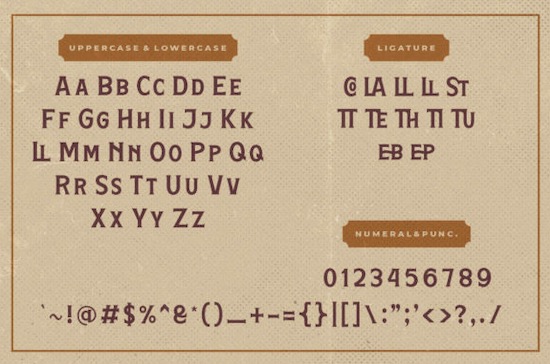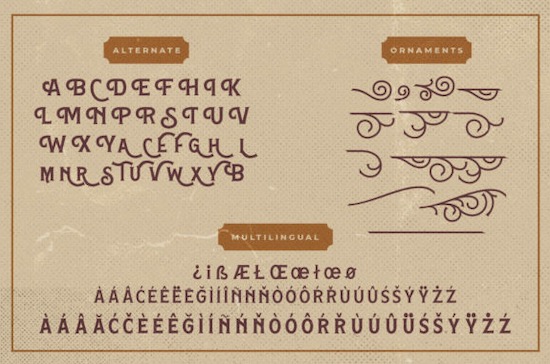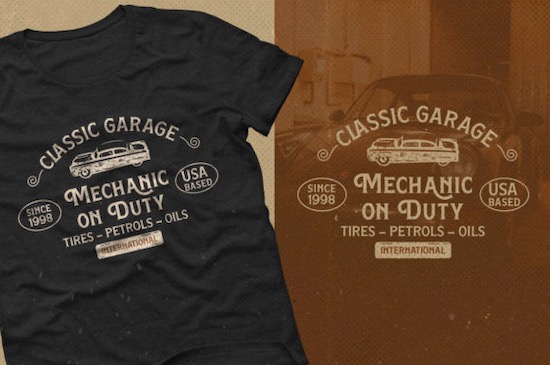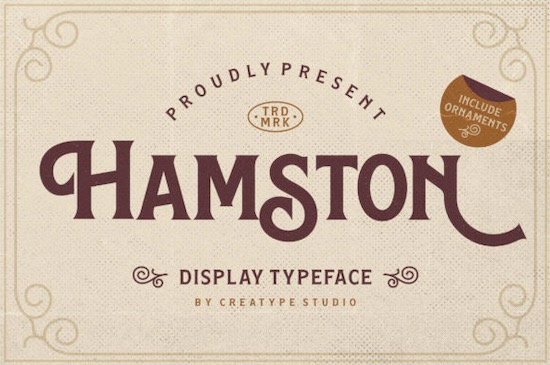
Hamston font is unique ideal for any professional design project. It’s carefully created by CreatypeStudio. This author working on this font took huge care about the legible show as well as high-grade versatility.
It is perfect for both web and print displays. So, you can make Hamston utilize daily printing thoroughly. Moreover, this font can be used for perfect font pairing, stationery, wedding designs, advertisements, logo, branding projects, product packaging, photography, product designs, watermark, invitation, social media posts, and much more.
Hamston Display Font